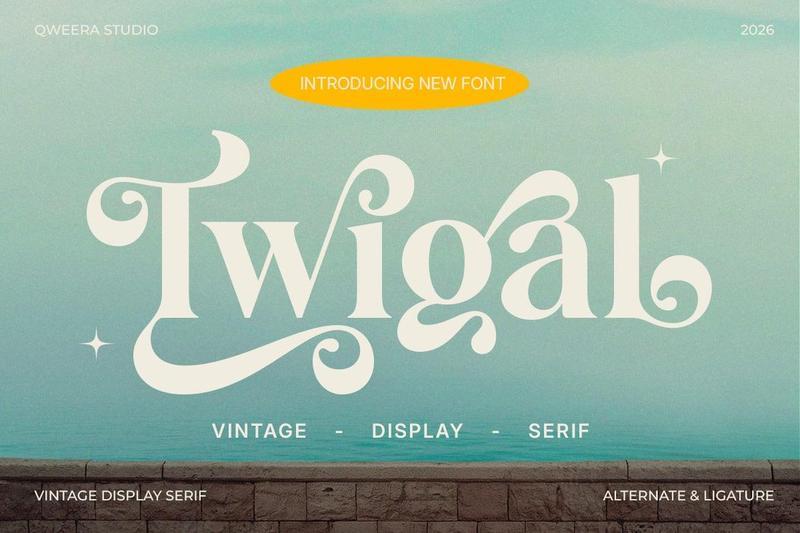
**Twigal** is a vintage display serif typeface designed to bring playful charm, retro personality, and stylish visual impact into modern creative projects. Featuring bold letterforms, expressive alternates, and decorative ligatures, this font creates a memorable typographic presence with nostalgic appeal.
Perfect for vintage branding, retro posters, product packaging, caf logos, lifestyle campaigns, summer visuals, boutique identities, editorial headlines, and creative merchandise.
Twigal blends vintage aesthetics with modern readability, making it an excellent choice for designers seeking a display serif with character, warmth, and bold creative energy.
**Features**
– Uppercase & lowercase
– Alternates & ligatures
– Multilingual support
– Professional kerning
– Regular & Italic
**Perfect For**
Vintage branding, retro posters, product packaging, caf logos, lifestyle campaigns, editorial headlines, boutique identities